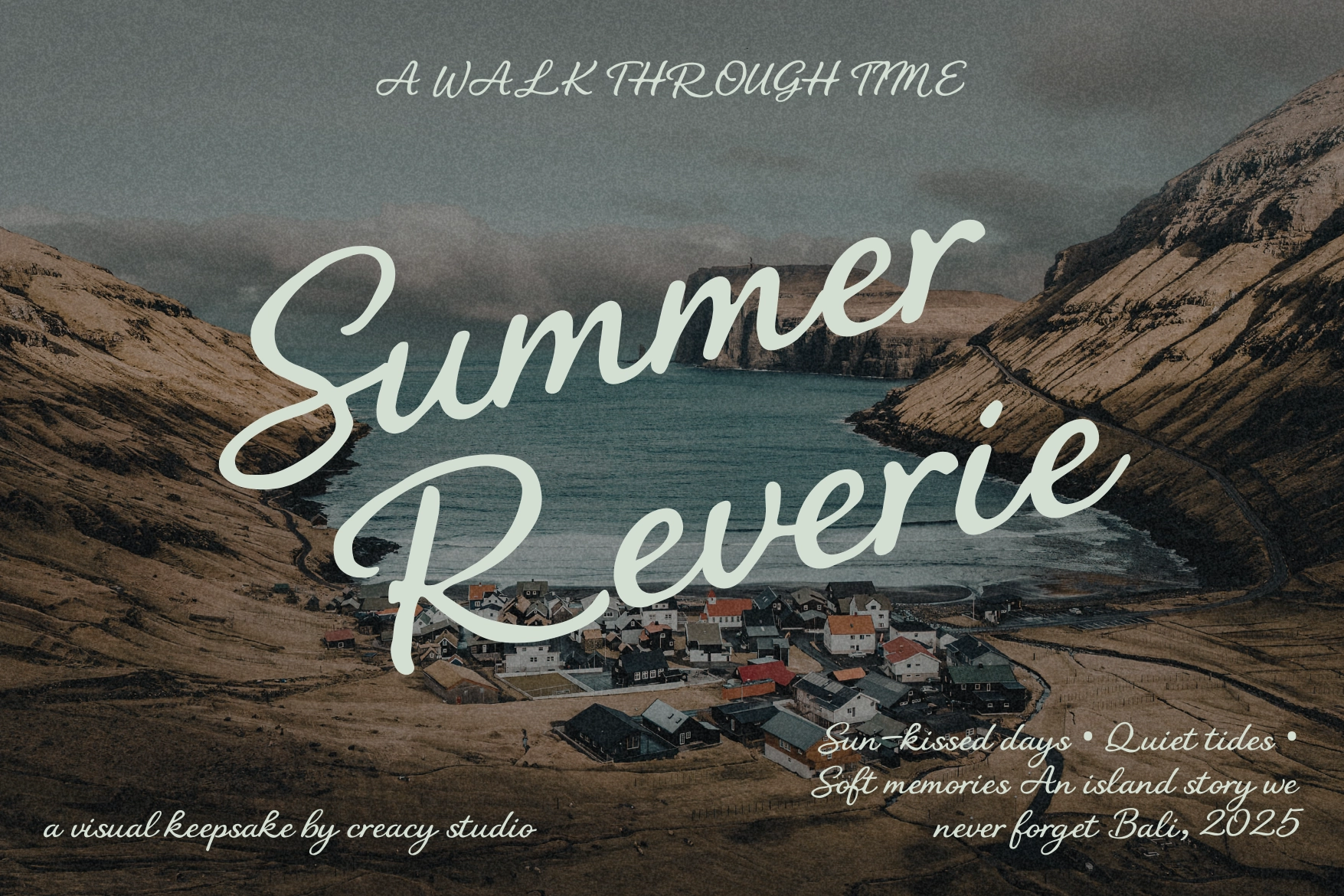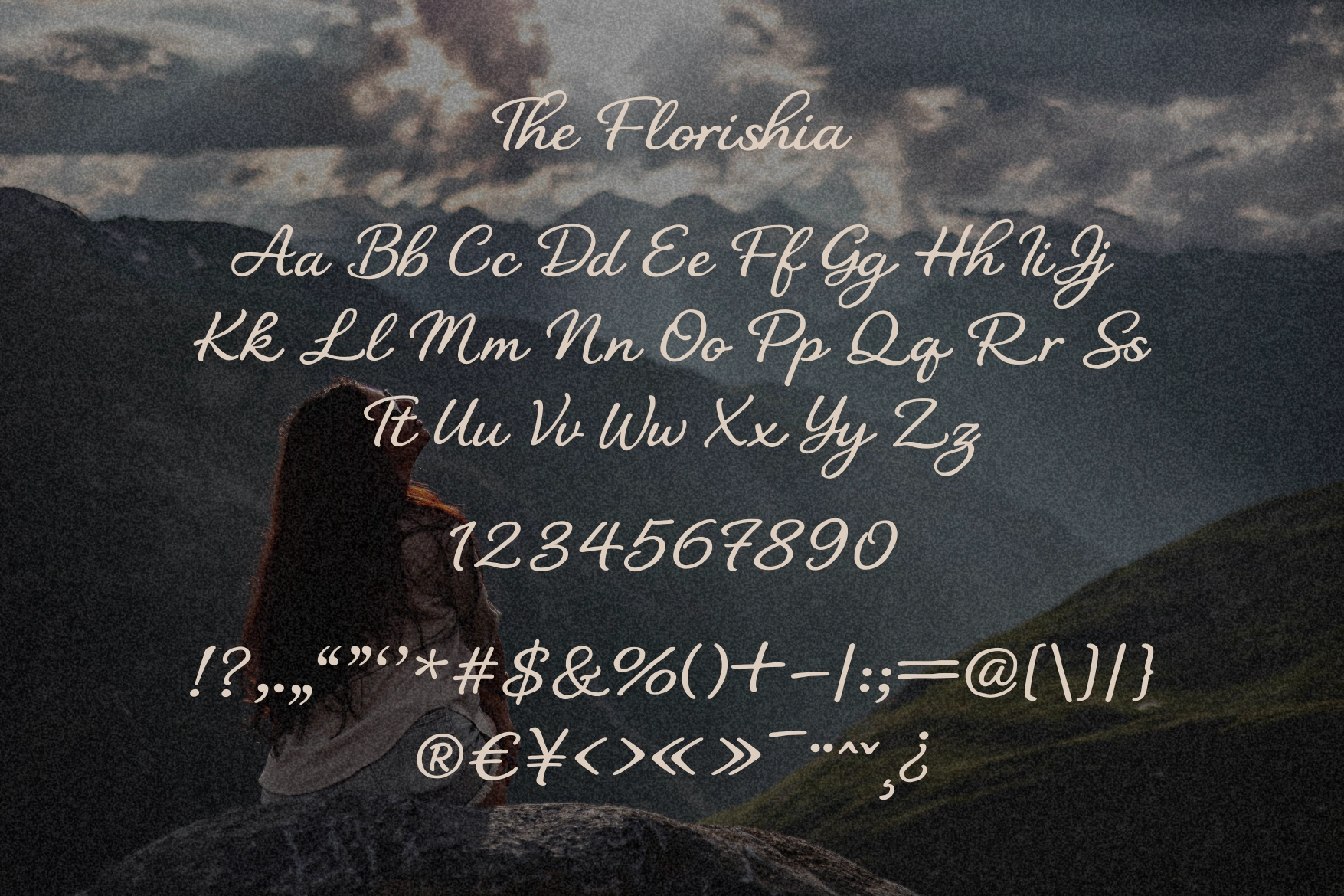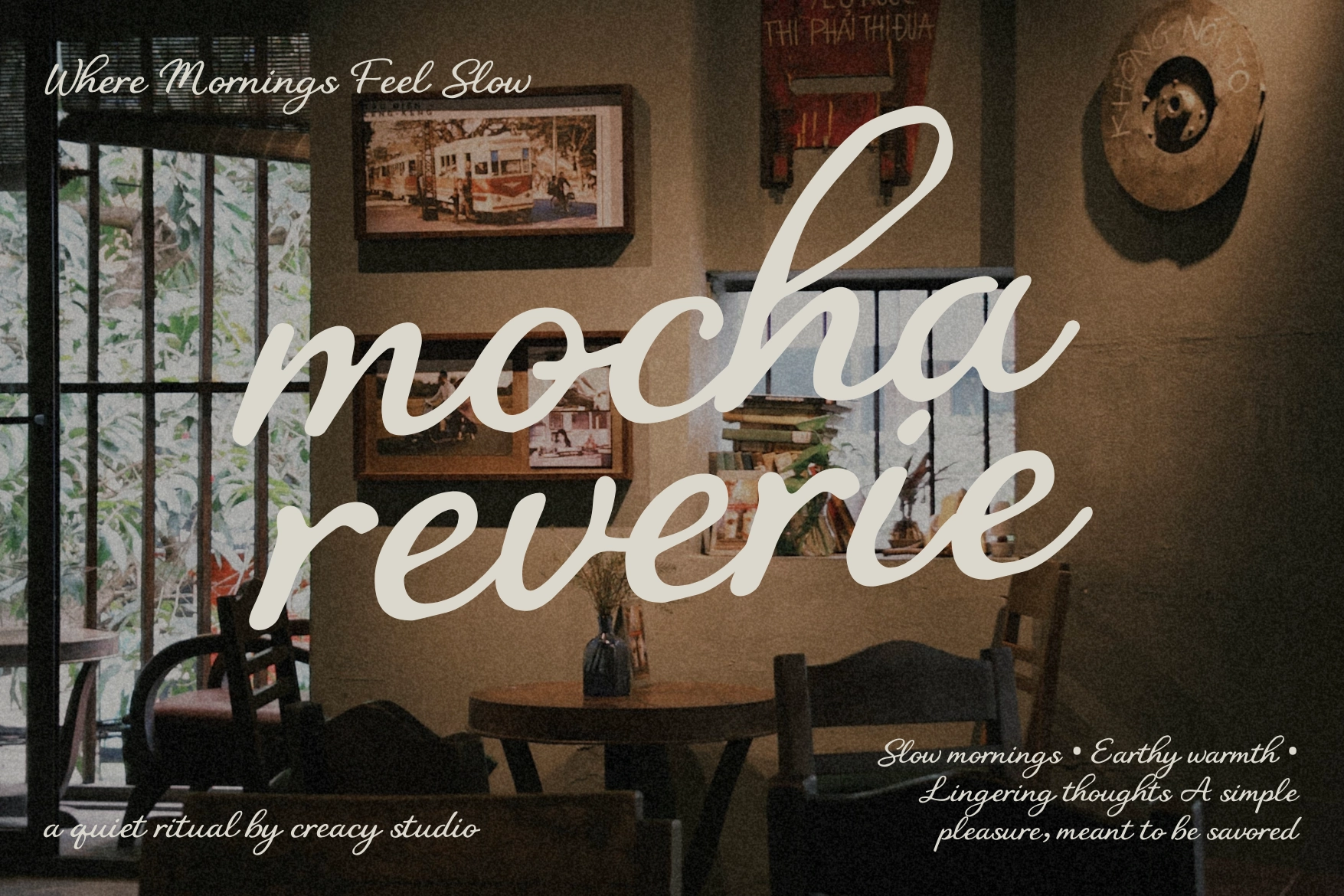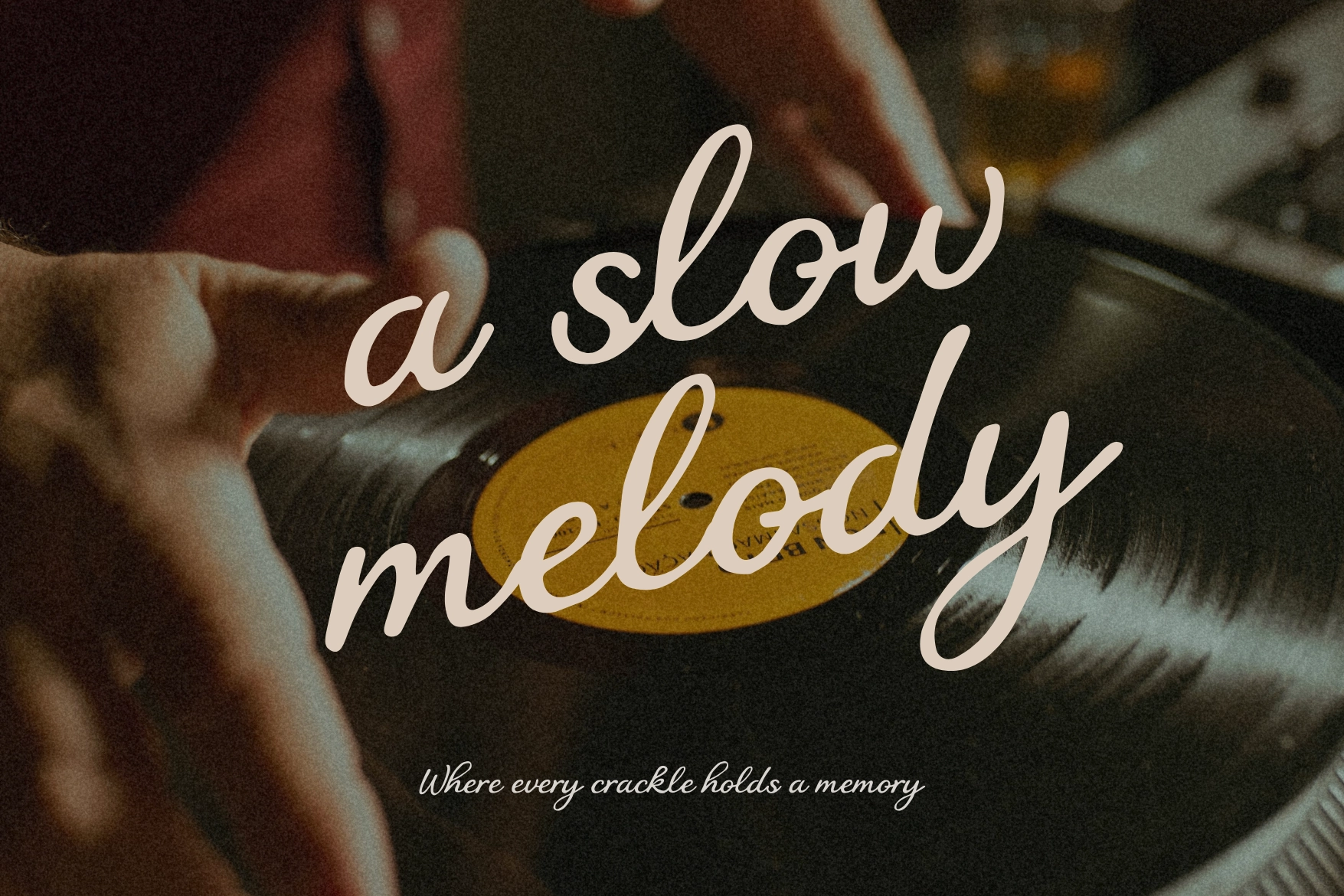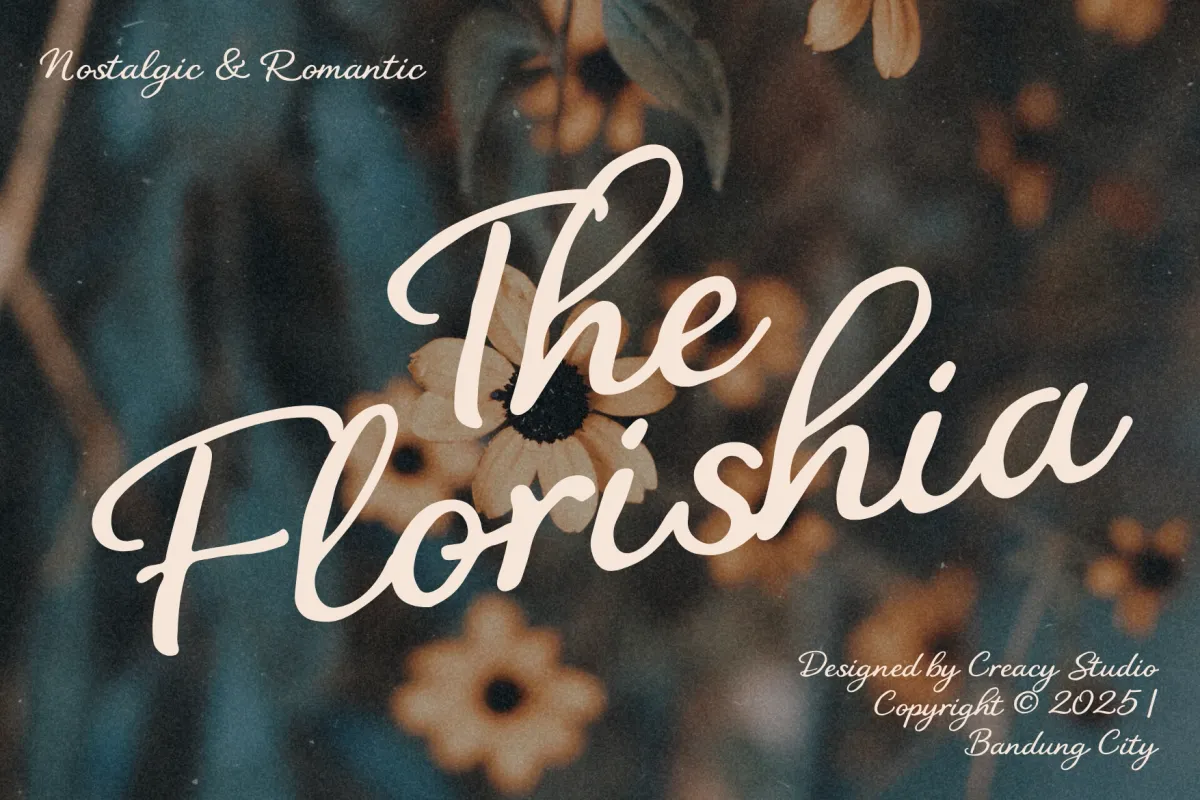
The Florishia – Romantic Handwritten Script
The Florishia
The Florishia is a romantic handwritten script font designed for soft, emotional, and timeless visual stories. Inspired by nostalgic moments, slow living, and warm atmospheres, this font brings an organic handwritten feel with elegant flow and natural rhythm.
Its smooth curves and balanced strokes create a calm, expressive personality that works beautifully across lifestyle branding, editorial layouts, and modern creative projects.
- Handwritten script style
- Smooth, flowing letterforms
- Soft curves and rounded terminals
- Consistent stroke weight
- Elegant and readable structure
Ideal for:
- Branding & logo design
- Editorial and poster layouts
- Wedding & stationery design
- Lifestyle and social media content
- Packaging and label design
- Numbers and punctuation
- Basic multilingual support
The Florishia blends modern handwritten simplicity with a subtle vintage mood. Its relaxed flow and natural spacing make it suitable for designs that value emotion, clarity, and visual warmth.